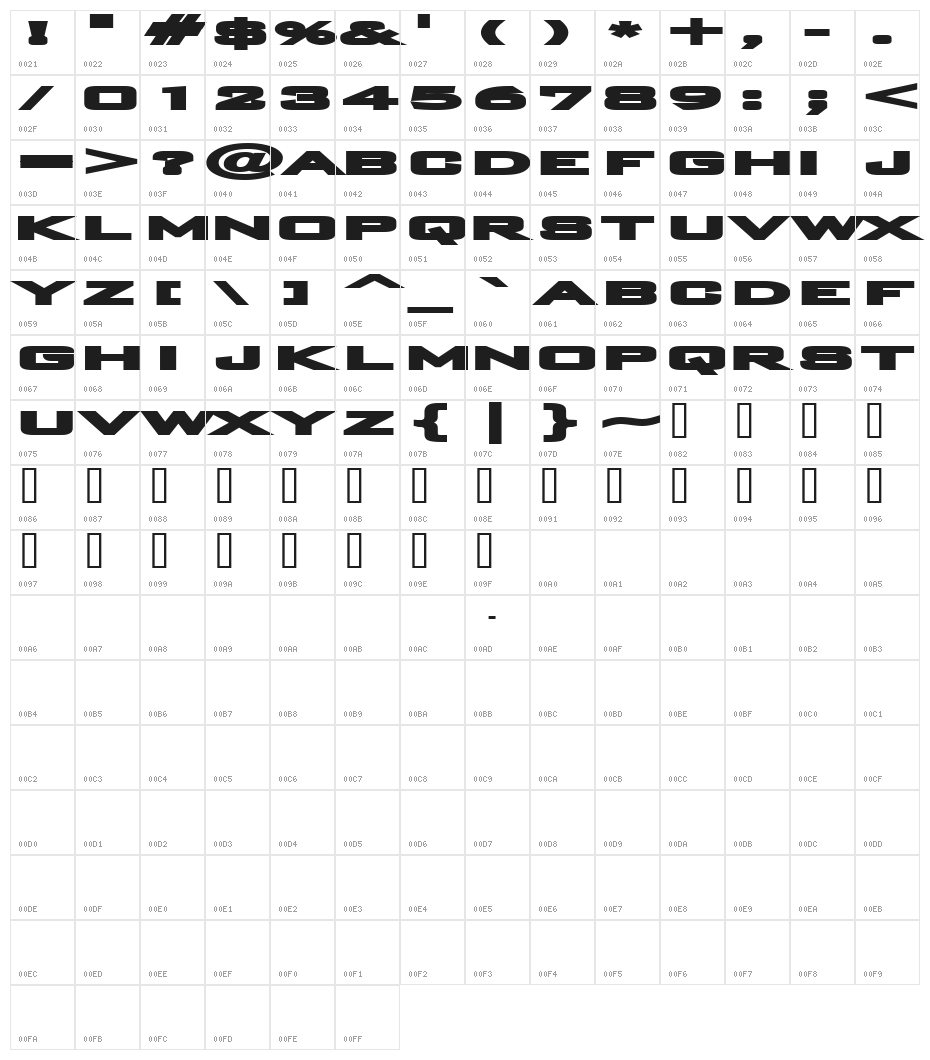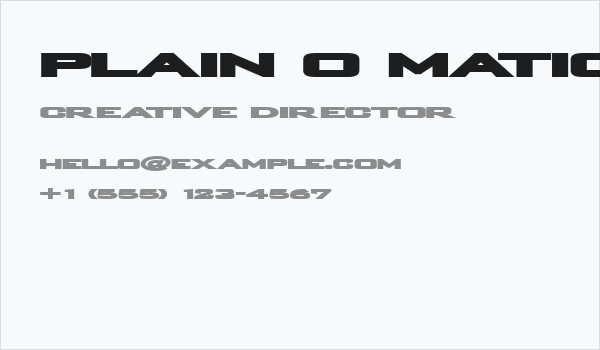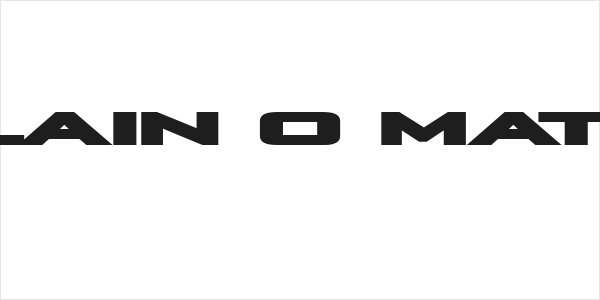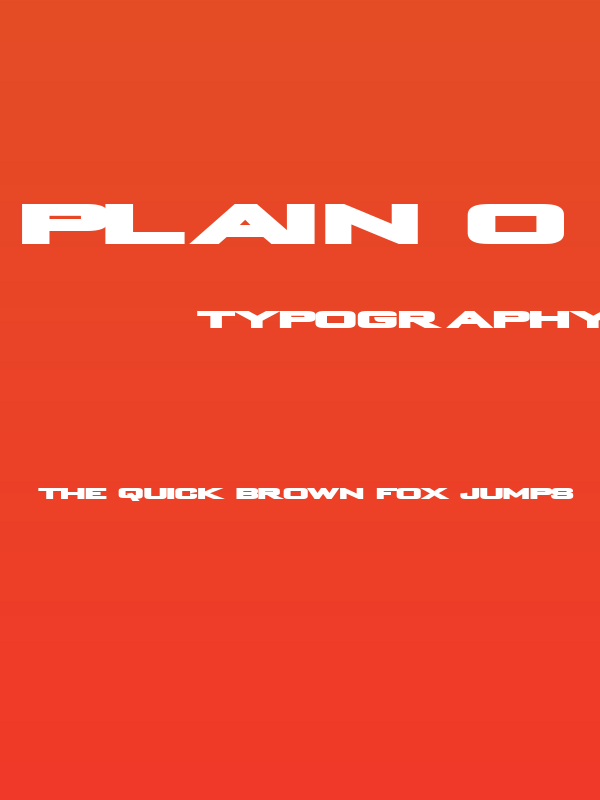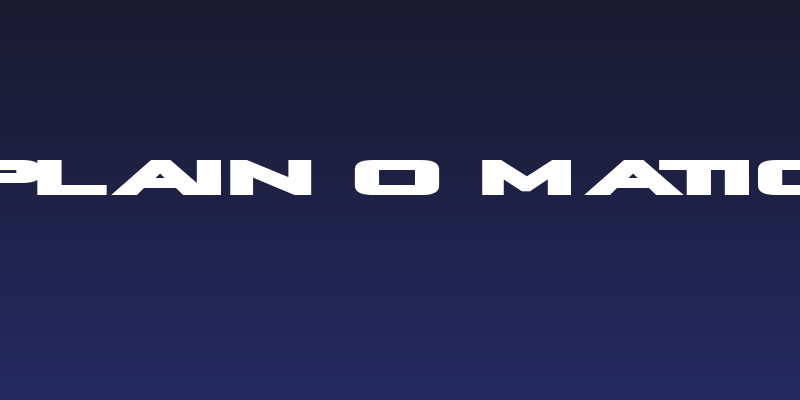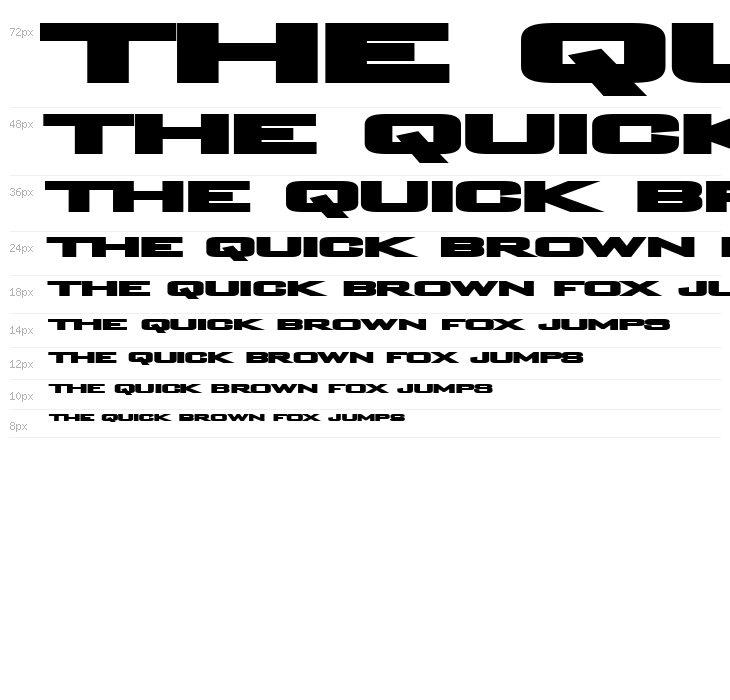
Plain O Matic Font
Plain O Matic Description
This font features a bold and dynamic design with a futuristic flair. The characters are wide and have a strong presence, making them ideal for attention-grabbing headlines. The angular cuts and sharp edges give it a modern and edgy look. The uppercase and lowercase letters maintain a consistent style, with the numbers and special characters following suit. The font's geometric shapes and uniform stroke widths contribute to its bold appearance, making it suitable for projects that require a strong visual impact.
| Proposed Projects | Ideal for sci-fi themed designs, video game titles, tech branding, and modern posters. |